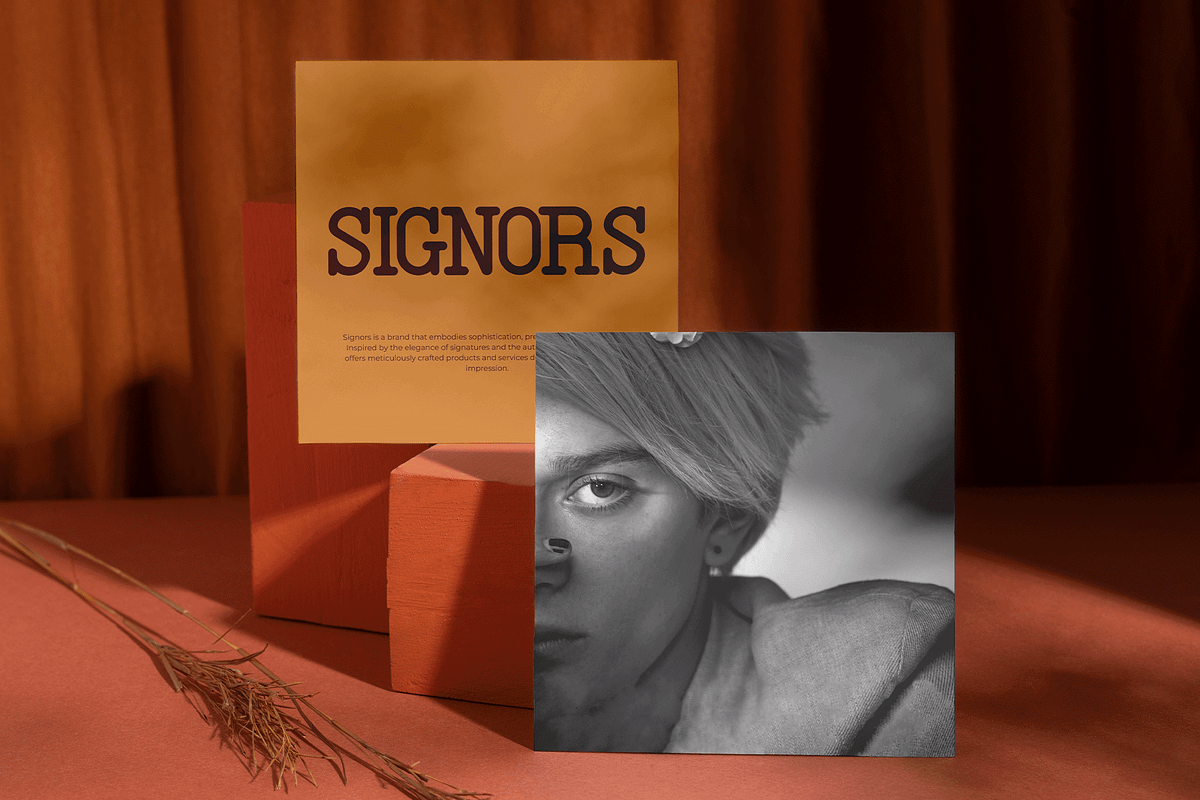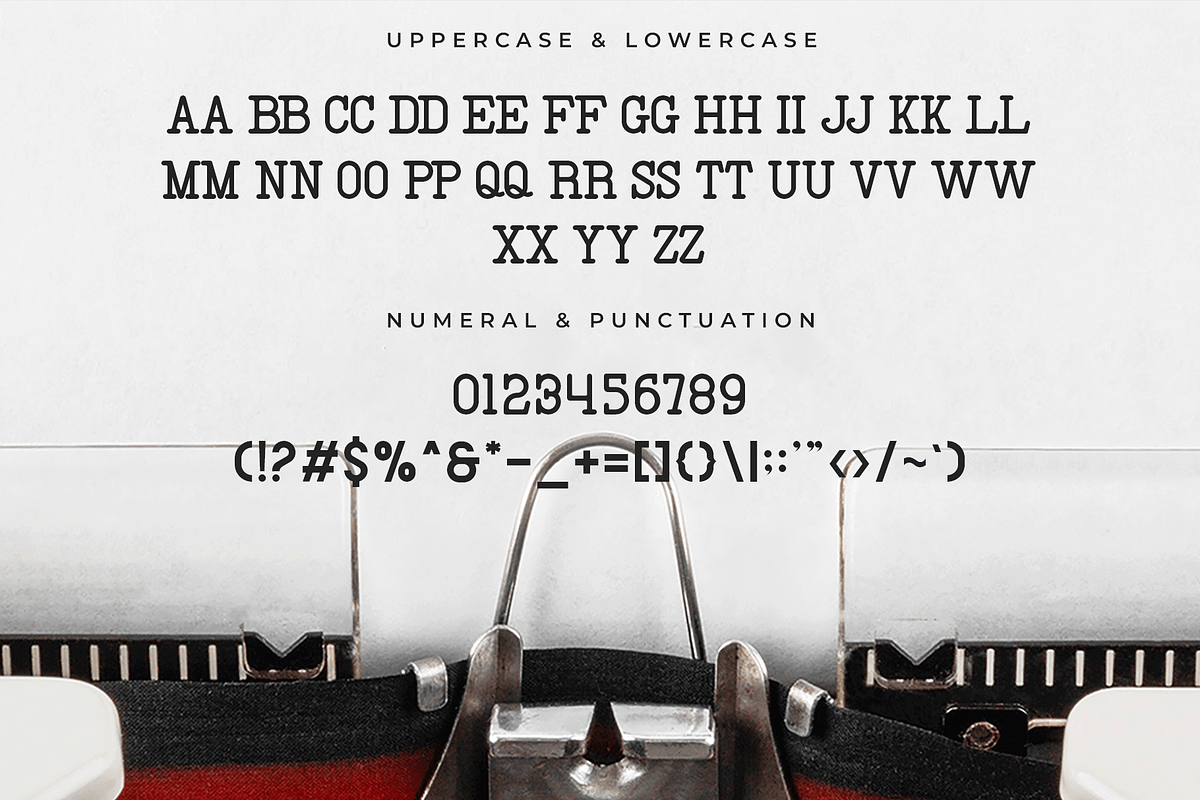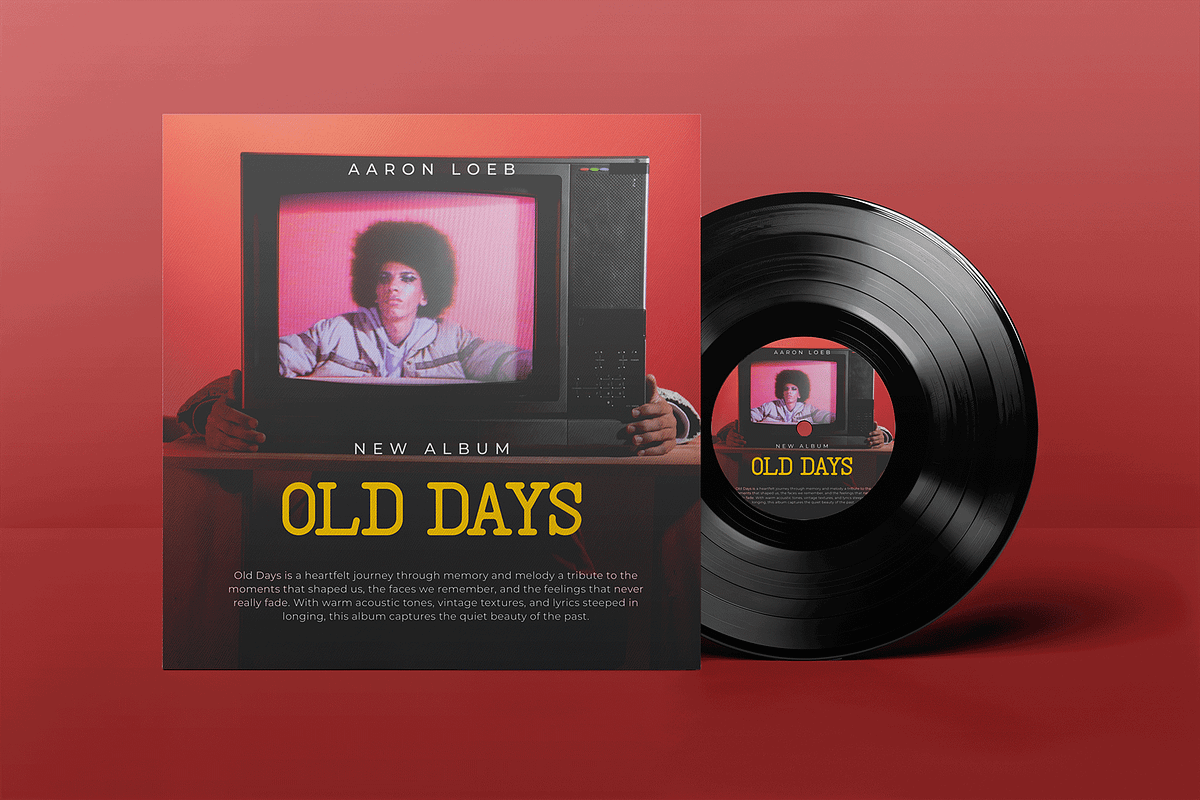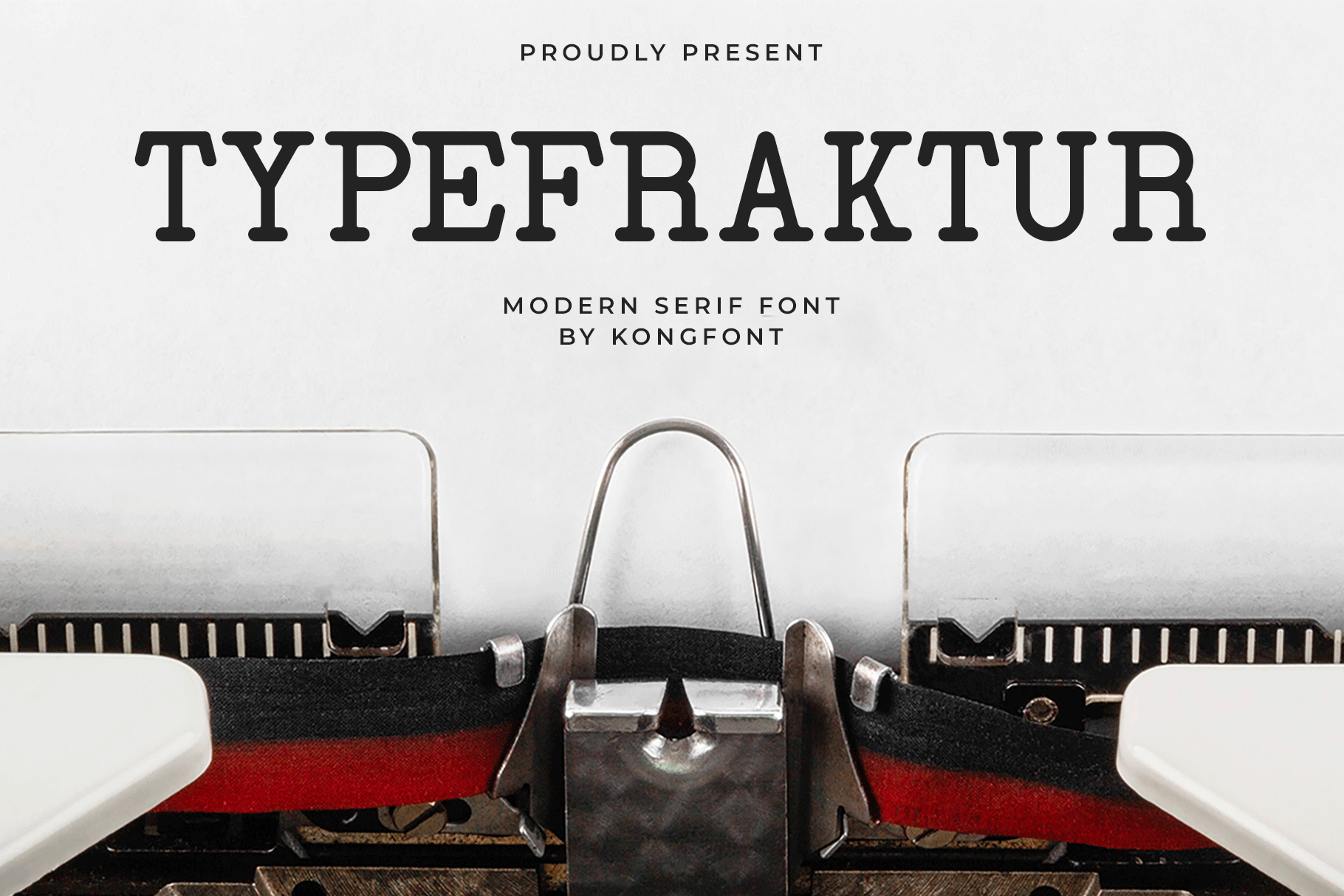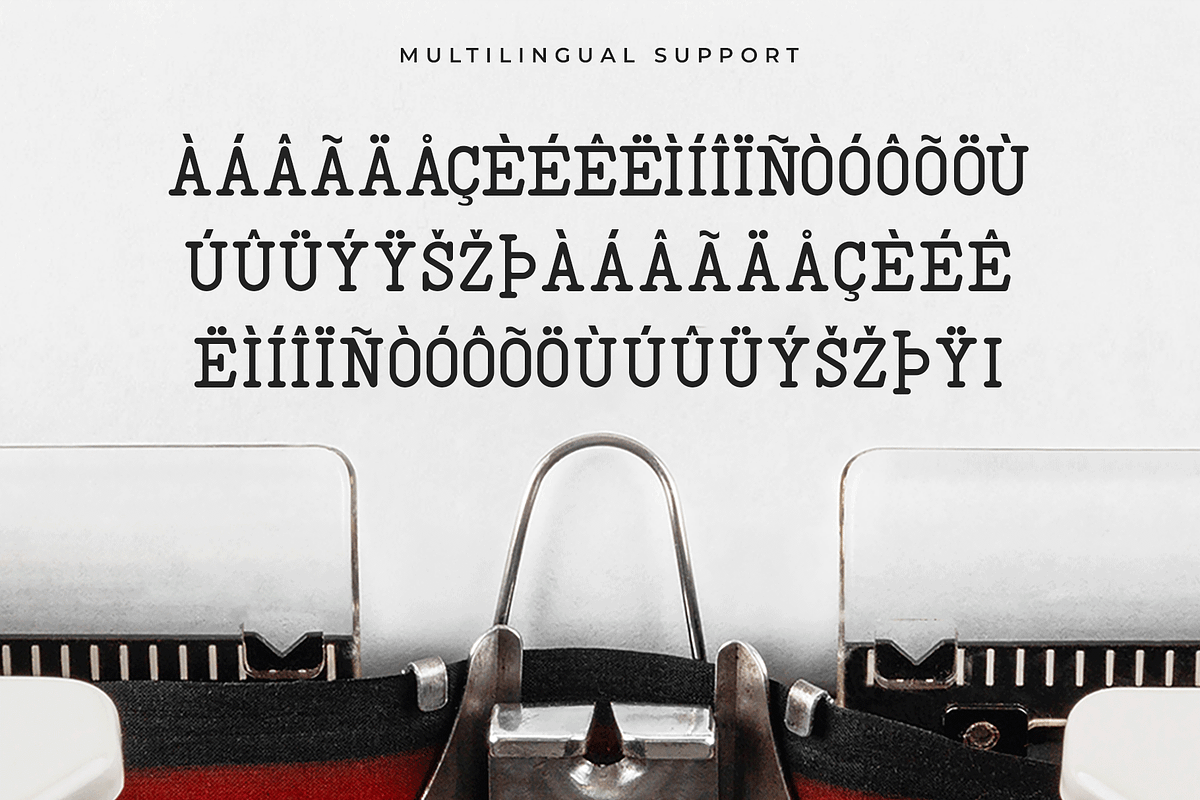
Typefraktur – Modern Serif Font
Typefraktur is a modern serif font that merges the bold essence of blackletter-inspired design with contemporary serif refinement. With its sharp angles, dramatic strokes, and elegant curves, this typeface brings an old-world charm into the modern design era.
Perfect for editorial headlines, fashion branding, logo design, packaging, posters, and album artwork, Typefraktur offers a unique voice that’s both historic and fresh. It’s ideal for creators who want to make a statement—elegant, fierce, and unmistakably stylish.
This font includes uppercase and lowercase letters, numbers, punctuation, ligatures, and multilingual support. Whether used as a striking headline or a stylish branding element, Typefraktur will turn every letter into a visual experience.